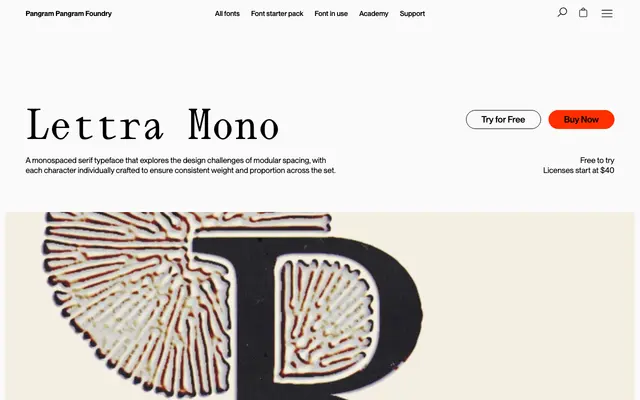
PP Lettra Mono
A monospaced serif with strong vertical contrast and diamond details, drawing on typewriter fonts and botanical classifications.
PP Lettra Mono is a monospaced serif that explores modular spacing while keeping the bite of a high-contrast text serif. Eight weights run upright and italic across sixteen styles, with diamond-shaped details, alternate characters and an experimental set including unconventional ligatures, ordinals, double-width Oo and a sigil. Sits well in editorial systems and technical documents that want a typewriter mood without the period parody.
Monospaced serif with strong vertical contrast and diamond-shaped details; draws on serif typewriter fonts and botanical drawing classifications, with each glyph individually crafted for consistent weight on a fixed grid.